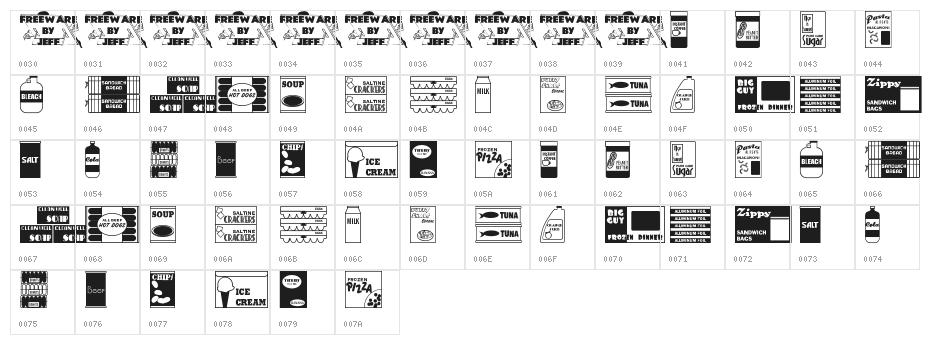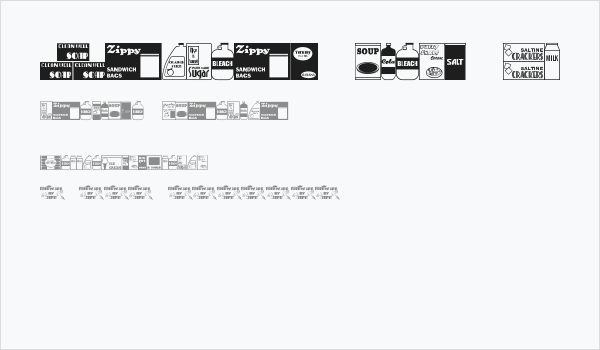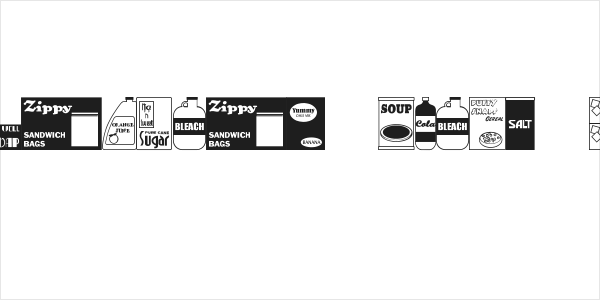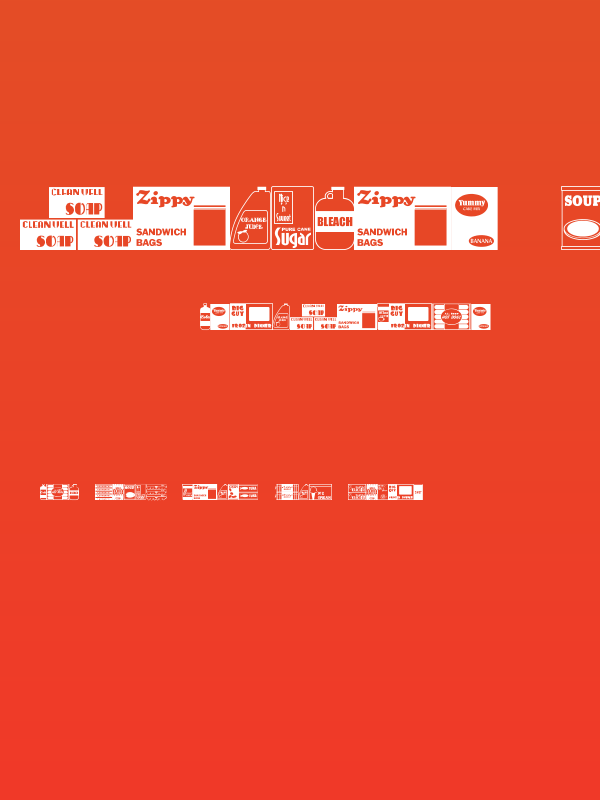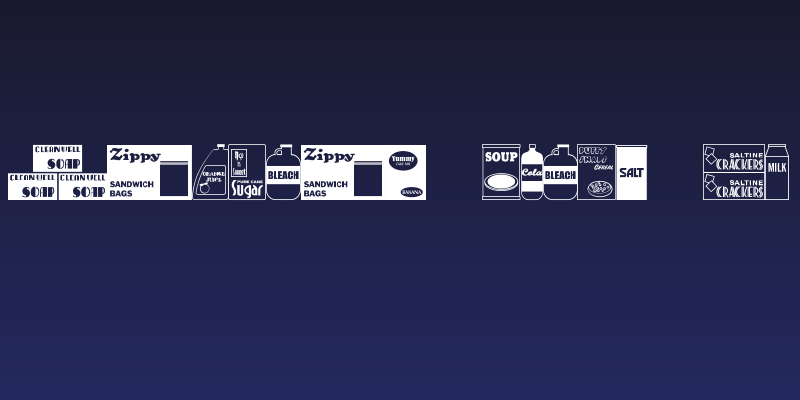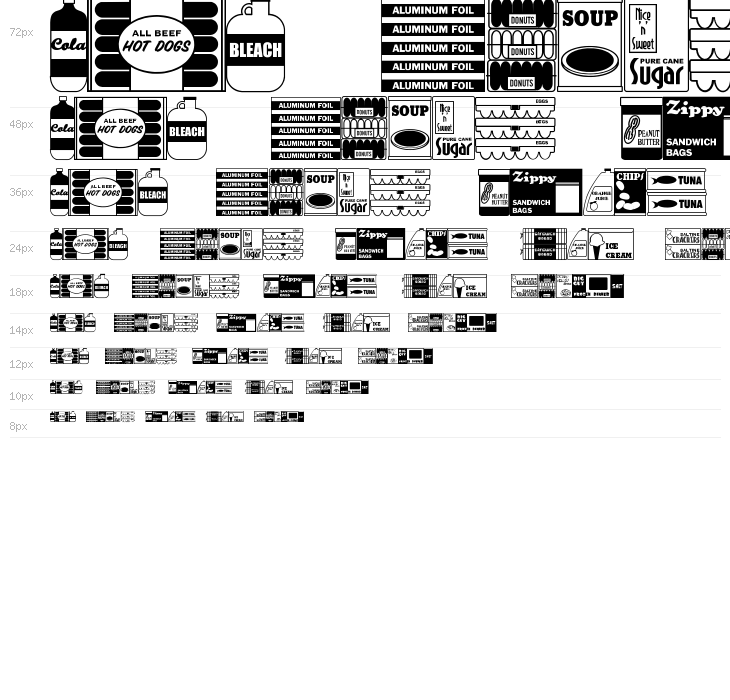
Grocery Items JL Font
Grocery Items JL Description
This font is a playful and decorative typeface that mimics the appearance of vintage grocery store packaging. Each character is designed to resemble a product label, featuring bold and blocky lettering with a retro aesthetic. The font includes a variety of grocery-themed icons and text, such as 'TUNA', 'SOUP', and 'ICE CREAM', each encapsulated in a distinct style that evokes mid-20th-century design. The characters are tightly spaced, creating a compact and cohesive look. The overall style is nostalgic and whimsical, making it suitable for projects that aim to capture a sense of retro charm and humor.
| Use Case | Logos, Posters, Novelty Items |
| Proposed Projects | Ideal for retro-themed designs, vintage posters, playful branding, and novelty packaging. |